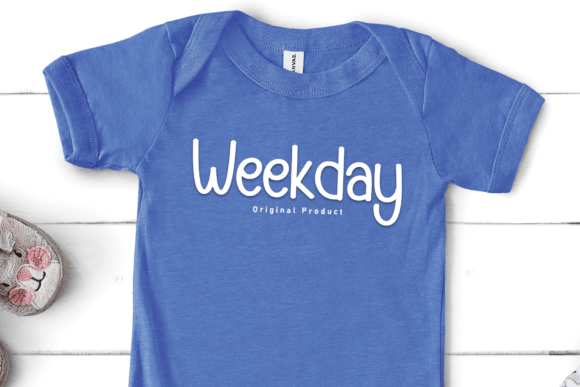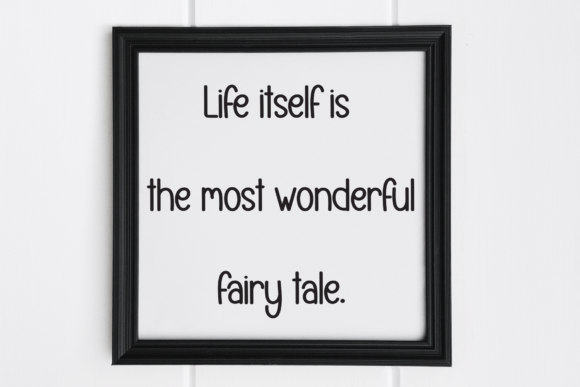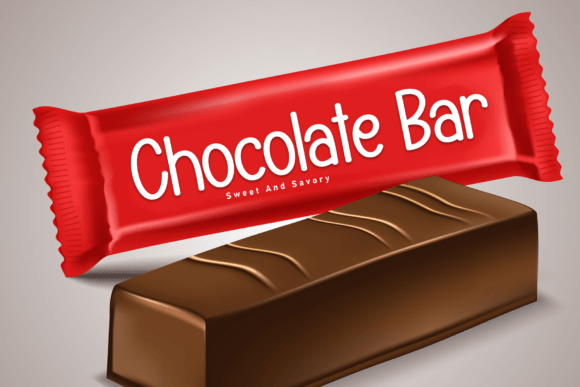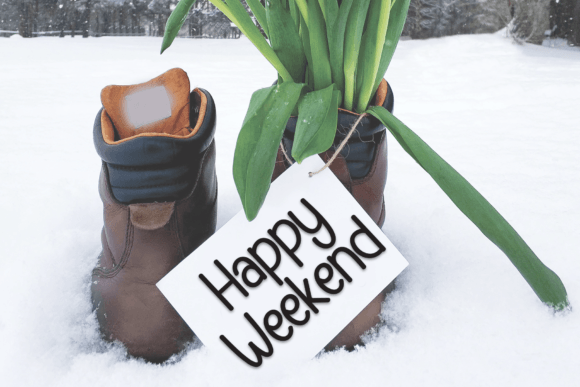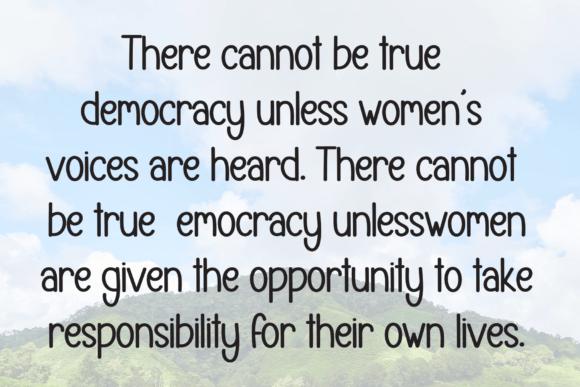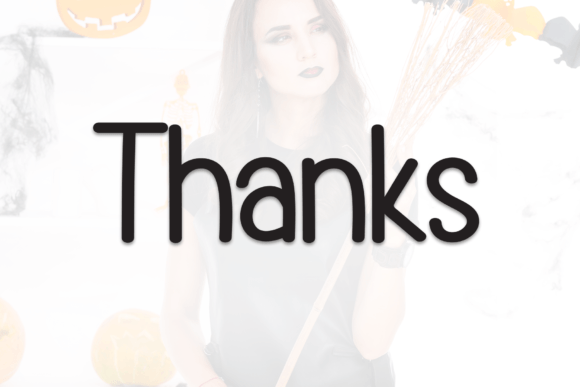
Unleash the Spooky Spirit with Beauty Halloween Font
Halloween is just around the corner, and what better way to get into the spooky spirit than with a font that’s as sweet as it is eerie? Look no further than the Beauty Halloween Font, a delightful handwritten font that’s perfect for adding a touch of whimsy to your designs. In this article, we’ll dive into the world of Beauty Halloween Font and explore its features, uses, and benefits for designers and crafters.
What is Beauty Halloween Font?
Beauty Halloween is a sweet and friendly handwritten font that’s perfect for creating designs that are both cute and fun. This font is ideal for writing wedding invitations, cards, or any other design that might need a fun touch. With its playful and approachable vibe, Beauty Halloween Font is sure to add a dash of personality to any project.
Key Features of Beauty Halloween Font
- Handwritten style: Beauty Halloween Font boasts a charming handwritten style that’s perfect for creating designs that feel personal and unique.
- Cute and fun: This font is designed to add a touch of whimsy to your designs, making it perfect for Halloween-themed projects, wedding invitations, and more.
- Versatile: Beauty Halloween Font can be used for a wide range of design projects, from digital files to print materials.
- Easy to read: Despite its playful style, Beauty Halloween Font is easy to read, making it perfect for designs that require a clear and concise message.
Uses for Beauty Halloween Font
Beauty Halloween Font is a versatile font that can be used for a wide range of design projects. Here are some ideas to get you started:
- Halloween-themed designs: Create spooky-ooky designs for Halloween, including invitations, party decorations, and more.
- Wedding invitations: Add a touch of whimsy to your wedding invitations and stationery with Beauty Halloween Font.
- Cards and gift tags: Use Beauty Halloween Font to create cute and personalized cards and gift tags for any occasion.
- Digital files: Use Beauty Halloween Font to create digital files, such as printable art, planners, and more.
Beauty Halloween Font offers a range of benefits for designers and crafters, including:
- Unique and creative designs: With Beauty Halloween Font, you can create designs that stand out from the crowd and showcase your personality.
Tips and Tricks for Using Beauty Halloween Font
Here are some tips and tricks for getting the most out of Beauty Halloween Font:
- Experiment with different colors: Beauty Halloween Font looks great in a range of colors, so don’t be afraid to experiment and find the perfect hue for your design.
- Mix and match with other fonts: Combine Beauty Halloween Font with other fonts to create a unique and eye-catching design.
- Use it for headings and titles: Beauty Halloween Font is perfect for headings and titles, adding a touch of personality to your design.
- Don’t be afraid to get creative: Beauty Halloween Font is a versatile font that can be used in a wide range of designs, so don’t be afraid to think outside the box and get creative!
Beauty Halloween Font is a sweet and friendly handwritten font that’s perfect for adding a touch of whimsy to your designs. With its playful and approachable vibe, this font is ideal for Halloween-themed projects, wedding invitations, and more. Whether you’re a designer or crafter, Beauty Halloween Font is a great addition to your font collection. So why not give it a try and see what spooky-ooky designs you can create?